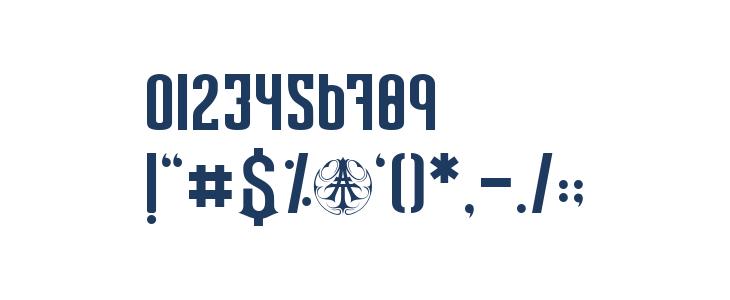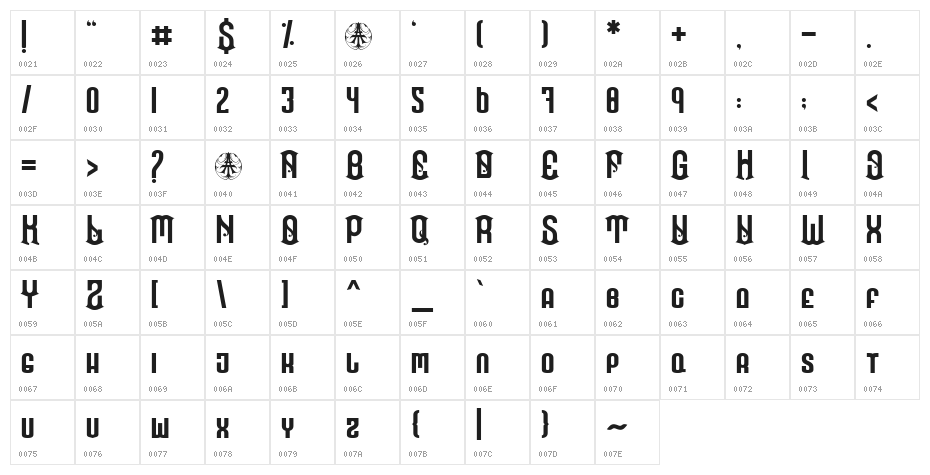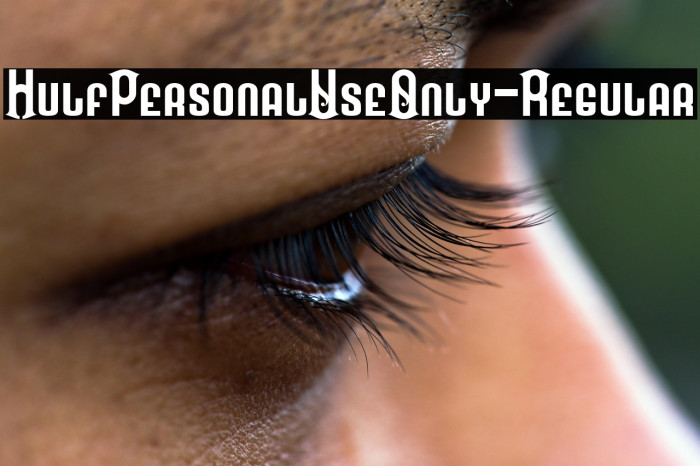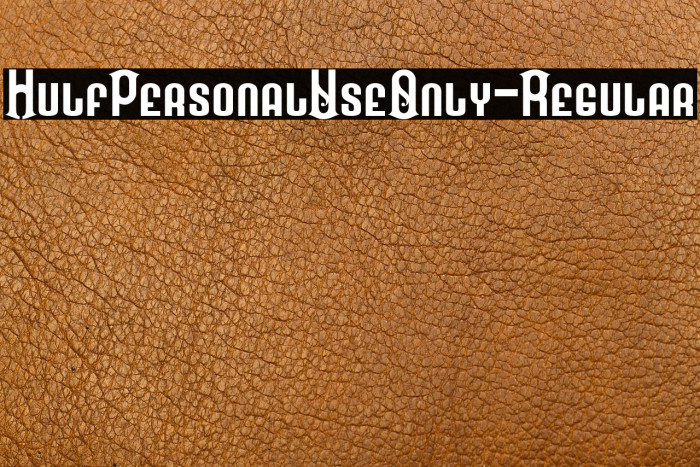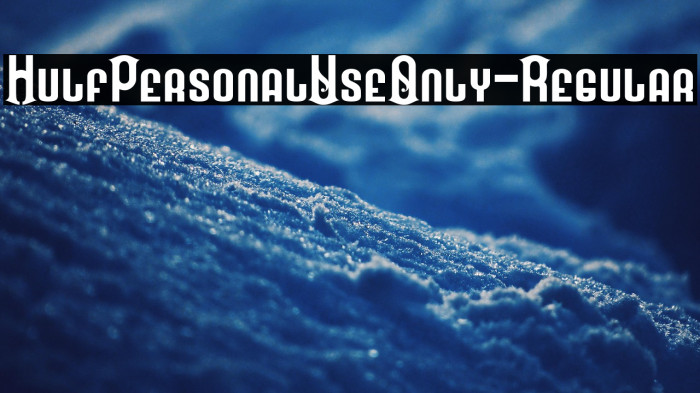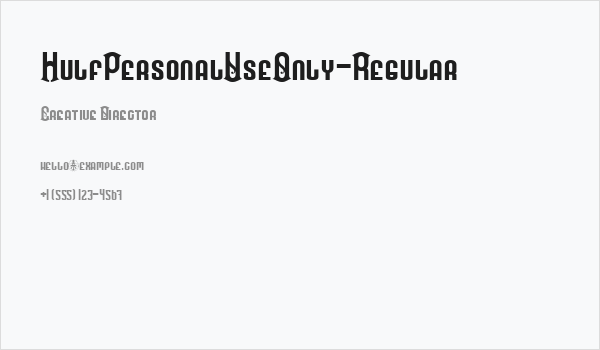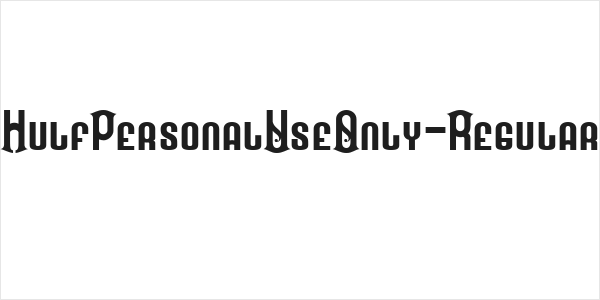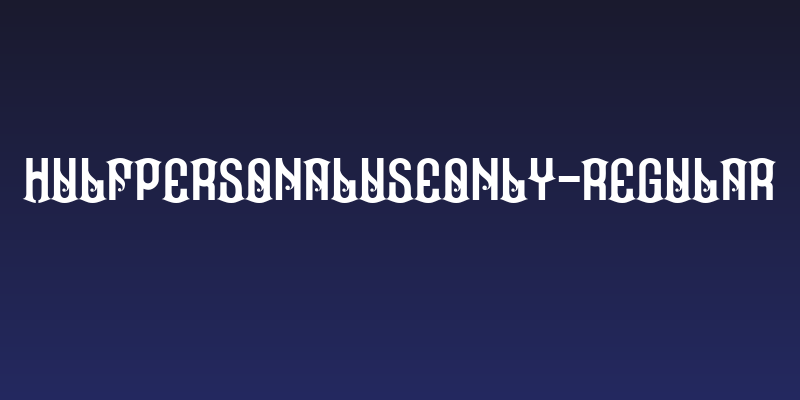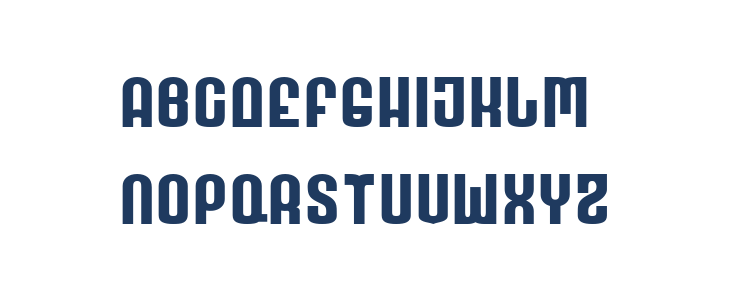
HulfPersonalUseOnly-Regular Font
HulfPersonalUseOnly-Regular Description
This font features a bold and decorative style with intricate details that give it a unique and eye-catching appearance. The uppercase letters have a strong presence with elaborate flourishes, while the lowercase letters maintain a consistent style that complements the overall design. The numbers are equally bold, ensuring readability while maintaining the decorative theme. Special characters are designed with the same attention to detail, making them suitable for creative projects. The font's distinct style makes it ideal for use in branding, posters, and other design projects that require a striking visual impact.